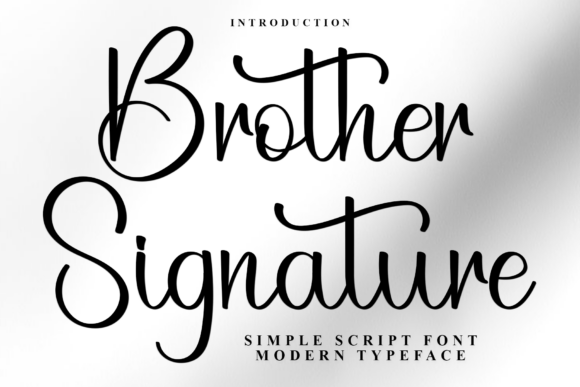
Introducing Brother Signature Font: A Festive and Merry Typeface for the Holiday Season
The holiday season is upon us, and what better way to get into the spirit than with a font that’s as festive and merry as Brother Signature Font? This decorative typeface is designed to capture the magic of the holiday season, with its whimsical flair and enchanting elements. In this article, we’ll take a closer look at Brother Signature Font, its features, and how you can use it to add a touch of nostalgia and cheer to your designs.
The Inspiration Behind Brother Signature Font
Brother Signature Font is a typeface that’s been crafted with the holiday season in mind. Its designer has drawn inspiration from the nostalgia and magic of this special time of year, creating a font that’s perfect for greeting cards, gift tags, and holiday-themed projects. With its decorative elements and whimsical flair, Brother Signature Font is sure to bring a smile to the face of anyone who sees it.
Key Features of Brother Signature Font
So, what makes Brother Signature Font so special? Here are just a few of its key features:
- Decorative elements: Brother Signature Font features a range of decorative elements, including swashes, flourishes, and other embellishments that add a touch of magic to your designs.
- Whimsical flair: This font has a playful, whimsical feel that’s perfect for holiday-themed projects.
- PUA encoded: Brother Signature Font is PUA encoded, which means you can access all of the amazing glyphs and ligatures with ease.
- Perfect for holiday projects: Whether you’re designing greeting cards, gift tags, or holiday-themed social media graphics, Brother Signature Font is the perfect choice.
Using Brother Signature Font in Your Designs
So, how can you use Brother Signature Font in your designs? Here are a few ideas to get you started:
- Greeting cards: Add a touch of magic to your holiday greeting cards with Brother Signature Font.
- Gift tags: Use Brother Signature Font to create custom gift tags that are sure to impress.
- Holiday-themed social media graphics: Add some festive flair to your holiday-themed social media graphics with Brother Signature Font.
- Packaging: Use Brother Signature Font to add a touch of personality to your holiday-themed packaging.
Tips for Getting the Most Out of Brother Signature Font
Here are a few tips for getting the most out of Brother Signature Font:
- Experiment with different sizes: Brother Signature Font looks great in a range of sizes, from small and delicate to large and bold.
- Play with color: This font looks great in a range of colors, from bright and bold to pastel and subtle.
- Combine with other fonts: Try combining Brother Signature Font with other fonts to create a unique and eye-catching look.
- Use the glyphs and ligatures: Don’t forget to take advantage of the PUA encoding and use the glyphs and ligatures to add extra flair to your designs.
Why Choose Brother Signature Font?
So, why should you choose Brother Signature Font for your holiday-themed designs? Here are just a few reasons:
- Unique and eye-catching: This font is sure to stand out in a crowd and add a touch of personality to your designs.
- Perfect for the holiday season: Brother Signature Font is specifically designed with the holiday season in mind, making it the perfect choice for holiday-themed projects.
- Easy to use: With its PUA encoding, Brother Signature Font is easy to use and access all of the amazing glyphs and ligatures.
- High-quality design: This font is designed to high standards, ensuring that it will look great in a range of applications.
In conclusion, Brother Signature Font is a festive and merry typeface that’s perfect for the holiday season. With its decorative elements, whimsical flair, and PUA encoding, it’s the perfect choice for holiday-themed projects. Whether you’re designing greeting cards, gift tags, or holiday-themed social media graphics, Brother Signature Font is sure to bring a touch of magic and nostalgia to your designs.